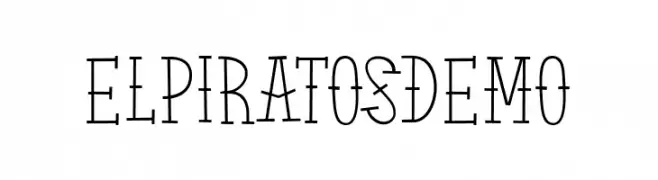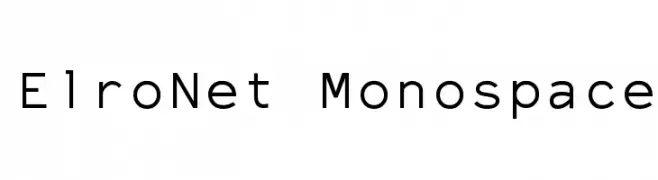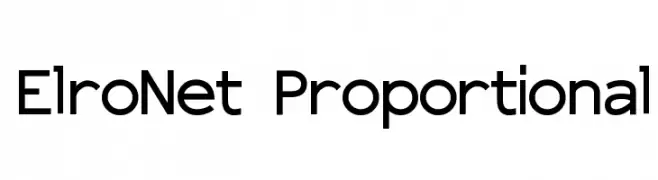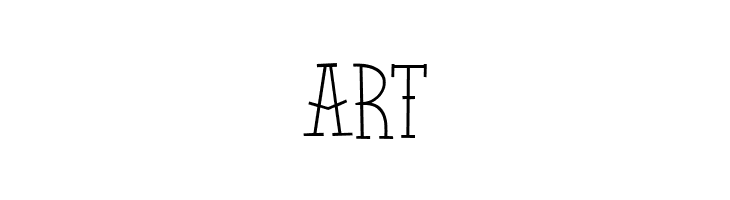
• Elok
A flowing, cursive script font with elegant, sweeping curves.
• Elonic Regular
( Fonts by Blankids )
Bold, playful hand-drawn font.
• Elosiam Free
A modern, elegant handwritten font with fluid and graceful strokes.
• Elowa
A playful, handwritten font with uneven strokes and a casual style.
• elph_chubba
• Elphinstone!"
• ElPiratosdemo
( Fonts by Alexa )
A playful and whimsical font with elongated, narrow characters.
• Elric
( Fonts by Omega Font Labs )
A bold, gothic-inspired font with sharp angles and thick strokes.
• ElroNet Monospace
• ElroNet Proportional